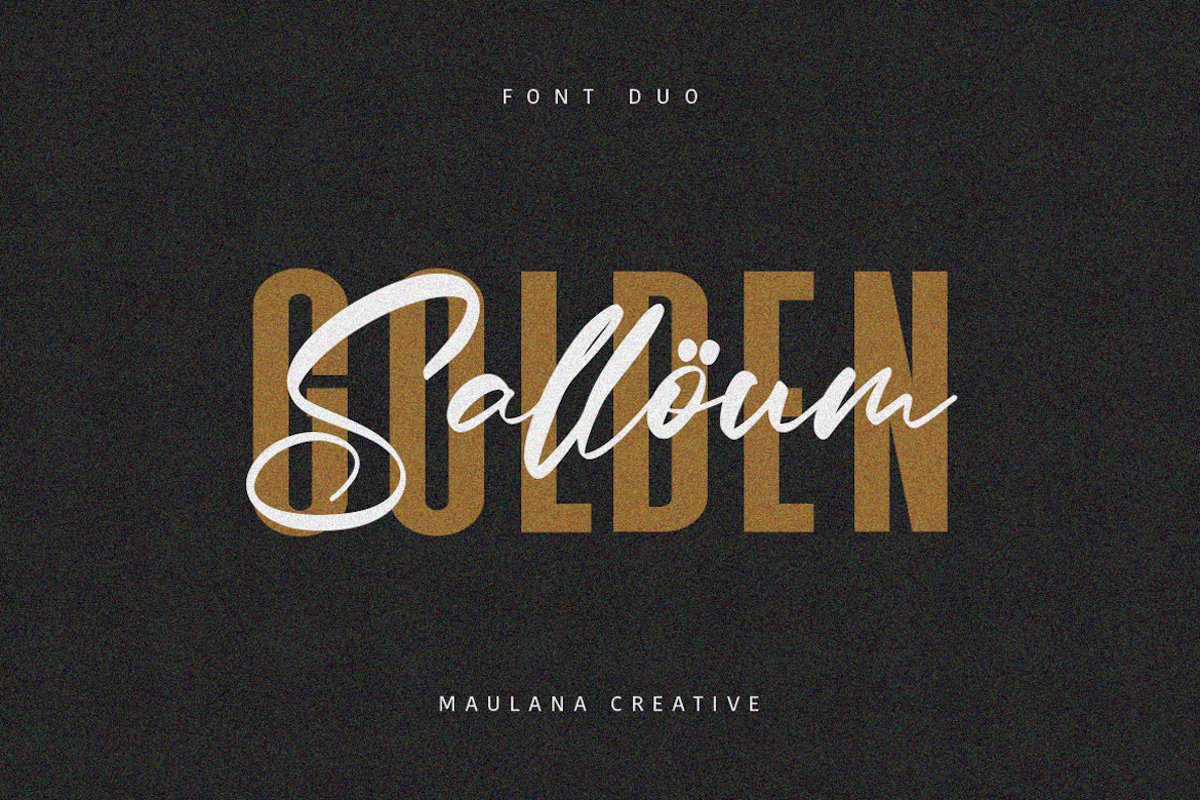
Salloum Golden Font Duo
Salloum Golden Sans
Salloum Golden
Give your designs an authentic handcrafted feel. Salloum Golden Font Duo is perfectly suited to signature, stationery, logo, typography quotes, magazine or book cover, website header, clothing, branding, packaging design and more.
Salloum Golden Font Duo